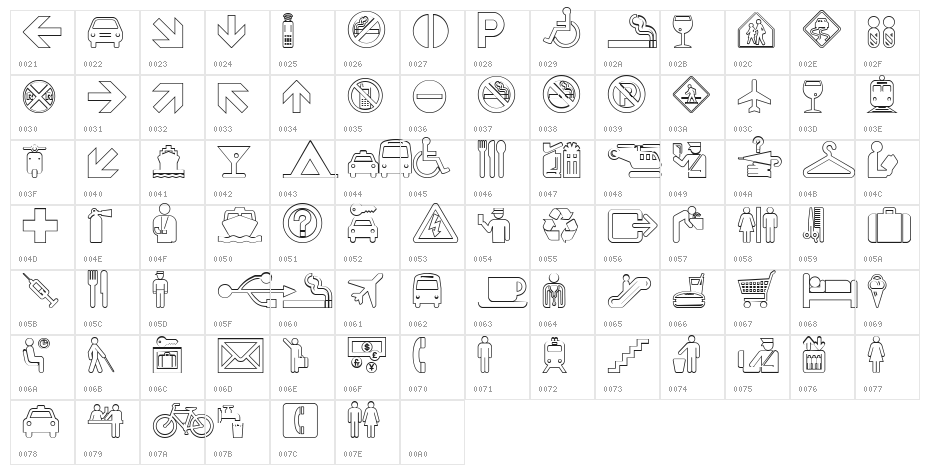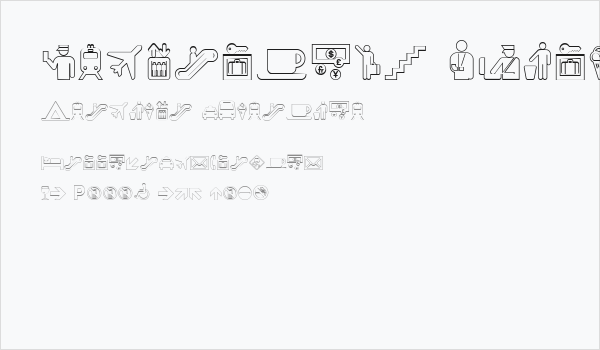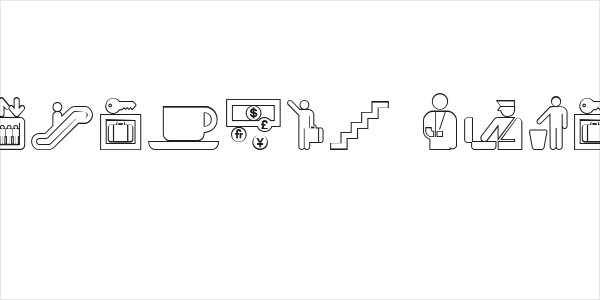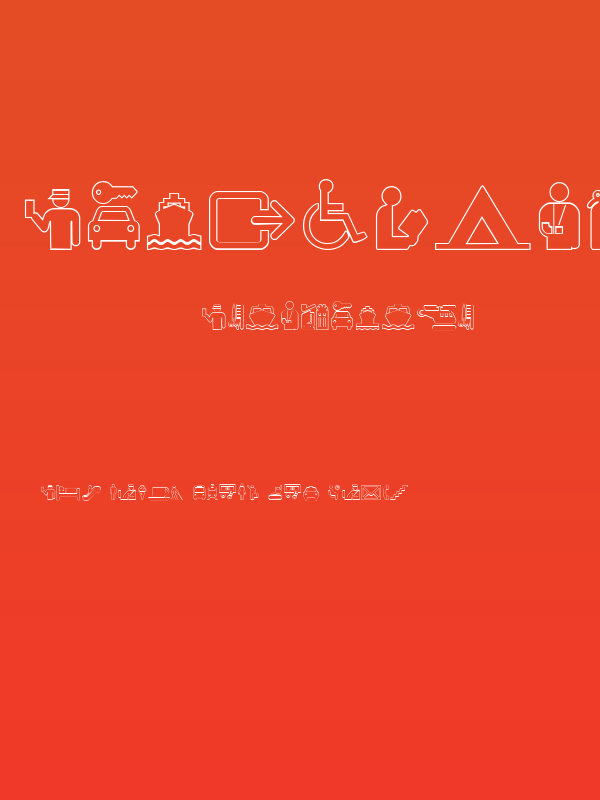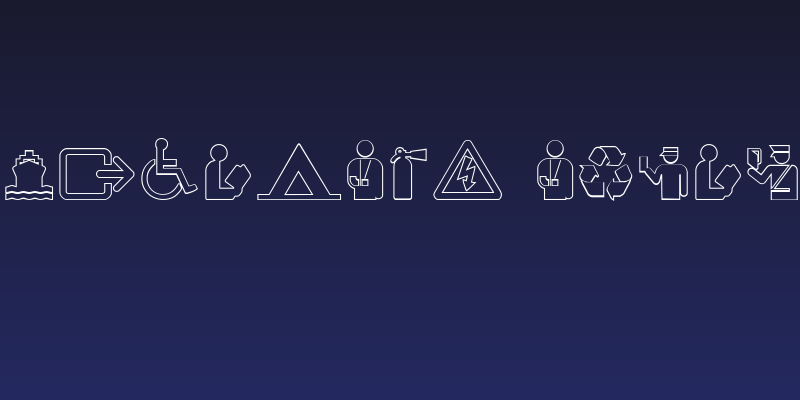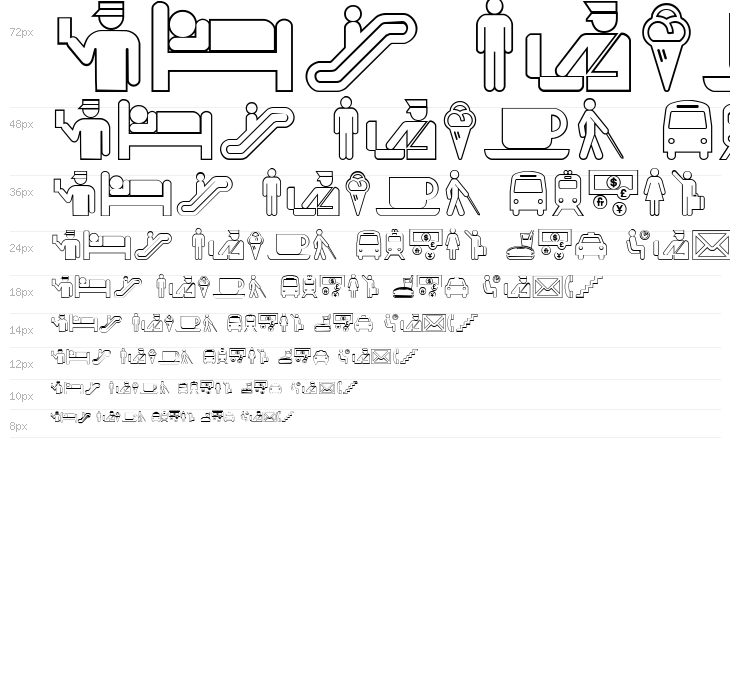
Travelcons Outline Font
Travelcons Outline Description
This collection of icons features a clean, outline style that is perfect for conveying a wide range of travel-related concepts. The icons are designed with simplicity and clarity in mind, making them easily recognizable at a glance. Each icon is crafted with a consistent line weight, providing a cohesive look across the entire set. The set includes a variety of symbols such as transportation, accommodation, dining, and safety, among others. The minimalistic design ensures that the icons remain versatile and can be used in various contexts without overwhelming the viewer. The outline style adds a modern touch, making these icons suitable for contemporary design projects.
Proposed ProjectsIdeal for travel apps, websites, brochures, signage, and infographics.